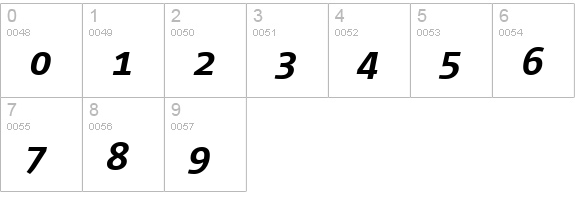
CorpidOffice Bold Italic Font Details
CorpidOffice Bold Italic is a strong, high-contrast, italic variant in the CorpidOffice typeface family \xE2\x80\x94 well suited to headlines, attention-grabbing titles, and strong calls-to-action.
CorpidOffice Bold Italic font is a striking and dynamic typeface that exudes confidence and modernity. Its bold weight commands attention, while the italic styling adds a touch of elegance and flair. Perfect for making a bold statement in your designs, this font is ideal for headings, titles, and other prominent text elements. Not only does CorpidOffice Bold Italic font offer a visually appealing design, but it also provides excellent legibility and readability, making it a versatile choice for a wide range of projects. Whether you're working on a website, poster, flyer, or any other design, this font will help your text stand out and make a lasting impression. The best part? CorpidOffice Bold Italic font is available for free download at FontsMarket.com. Now you can easily access this high-quality typeface and enhance your designs without breaking the bank. Don't miss out on this fantastic opportunity to elevate your typography with CorpidOffice Bold Italic font. Download it today and start creating eye-catching and impactful designs!